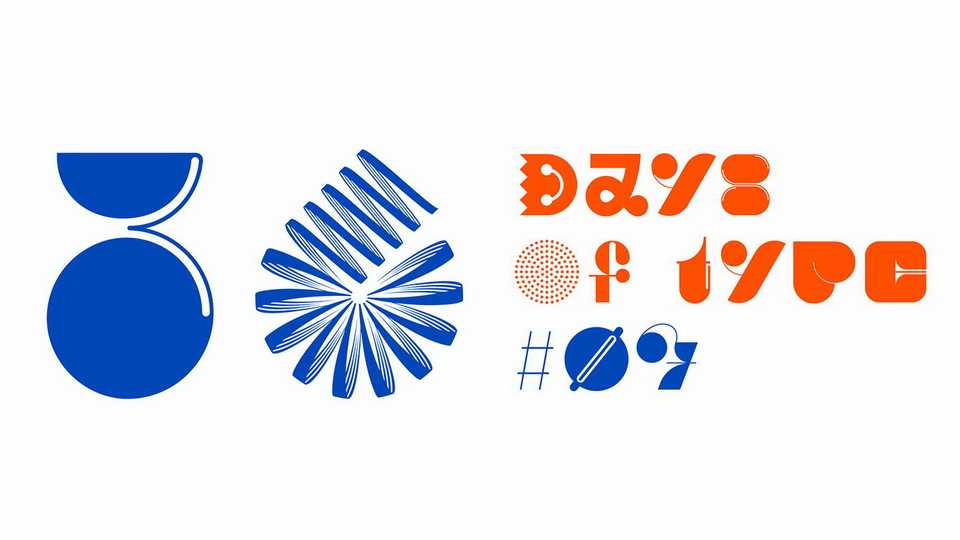
Download Thirtysixdays font, a creative display typeface designed during 36 Days of Type project. The typeface contains letters and numbers, each one with its own unique style and forms.
Designer: Martin Fek